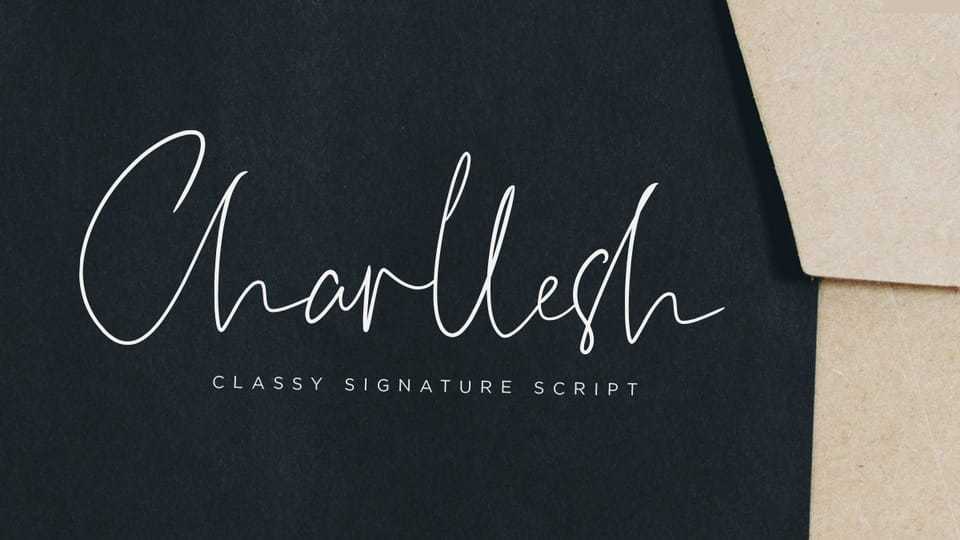
Download Charllesh font, a beautifully refined signature script typeface designed to bring a touch of elegance and personality to any design with its flowing, handwritten style and delicate curves.
Designer: Saystudio